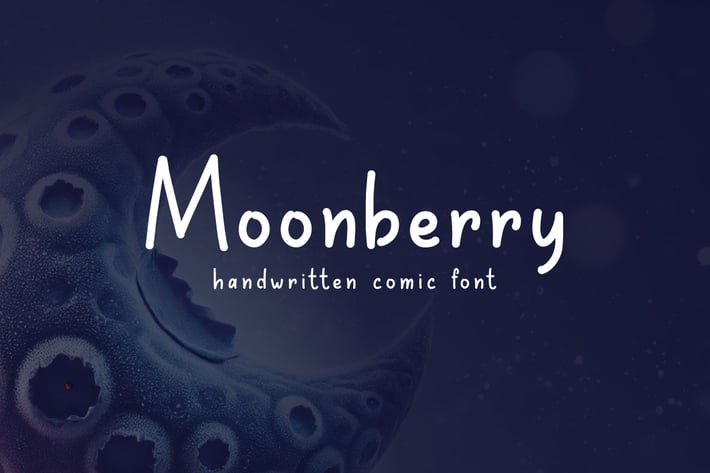
Moonberry - Handwritten Comic Font
Add a touch of sweetness to your designs with Moonberry, the cute handwritten comic font that brings joy and charm to any project! Designed with playful curves and a whimsical style, Moonberry is perfect for comic strips, children's books, greeting cards, and any creative project that needs a fun, friendly vibe. Its delightful and soft strokes give a handwritten feel that adds personality to your text, perfect for capturing attention and conveying warmth.